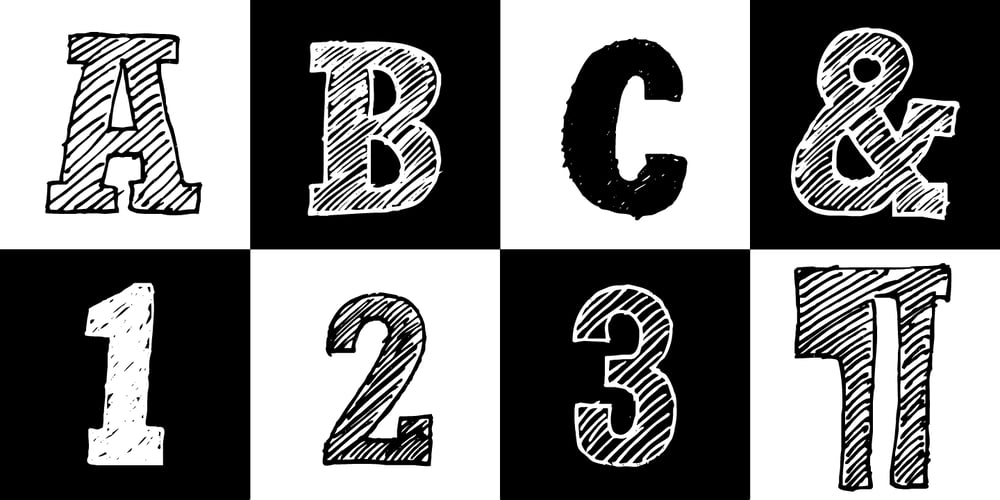
Hand Scribble Sketch Rock Font Family was designed by Manuel Viergutz and published by TypoGraphicDesign. Hand Scribble Sketch Rock contains 3 styles and family package options. U-P-D-A-T-E (more glyphs, bug fixed, MAC (Desktop) + WIN (Office) Version) CHARACTERISTICS An own interpretation of a classic egyptienne/slab serif typeface with modern and fancy handmade haptics/hatching. The 3 styles/weights fits perfectly in each font size. From light till bold. All 3 styles are handemade sketched for diverse display size. APPLICATION AREA This heavy, sketched, scribbled, handmade slab serif font “Hand Scribble Sketch Rock” with many language support would look good in headlines. Magazines or websites, party flyer, movie posters, music Poster, music covers or webbanner. TECHNICAL SPECIFICATIONS ■ Font Name: Hand Scribble Sketch Rock ■ Font Weights: Regular, Bold, Light ■ Fonts Category: Display for Headline Size ■ Font Format: OpenType OTF + Windows TrueType TTF ■ Glyph Set: 361 glyphs ■ Language Support: Basic Latin/English letters, Central Europe, Baltic, Romanian ■ Specials: alternative letters and ligatures (with accents & €) ■ Design Date: 2013 ■ Type Designer: Manuel Viergutz ■ Font License: Desktop license, Web license, App license, eBook license, Server license